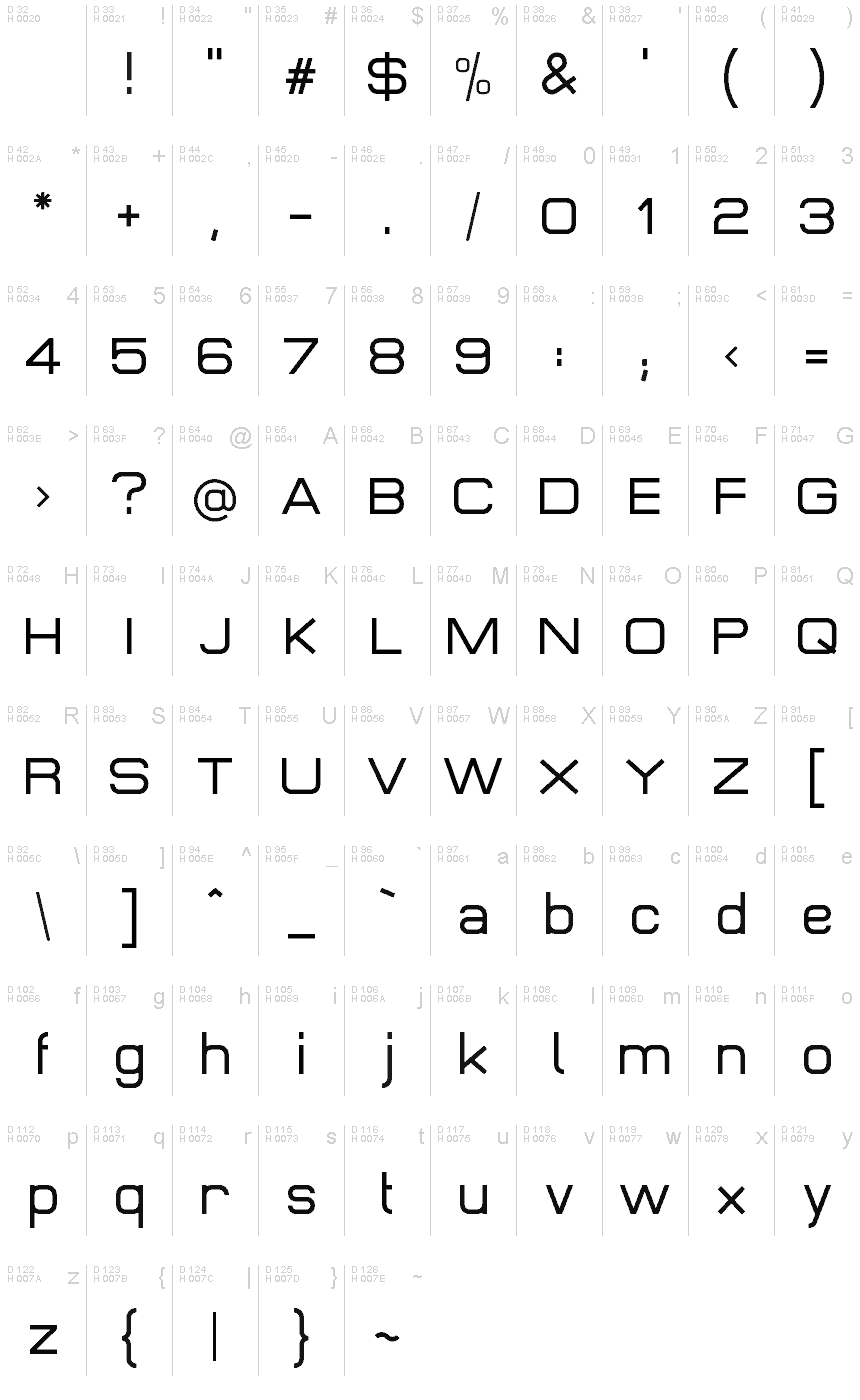
Plagiata
Plagiata is a striking sans-serif font that exudes a bold, modern aesthetic. Its clean, geometric letterforms and angular terminals lend it a sense of authority and precision. The font's distinct personality shines through in its subtly tapered strokes and carefully balanced proportions. Plagiata's versatility makes it well-suited for a range of applications, from branding and editorial design to packaging and digital interfaces.
Its strong visual impact and legibility ensure it commands attention, making it an excellent choice for headlines, titles, and other high-impact typographic elements.